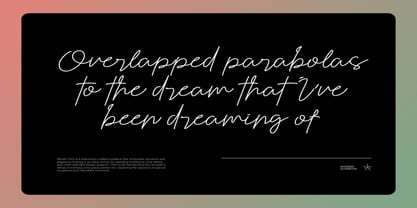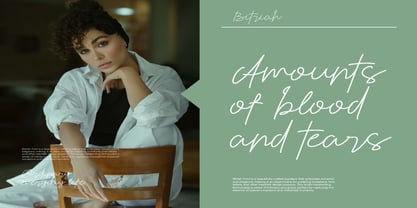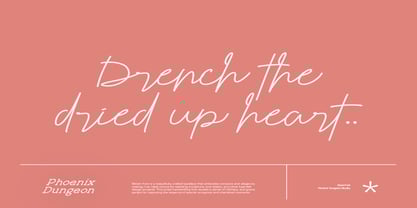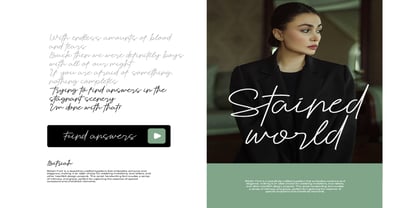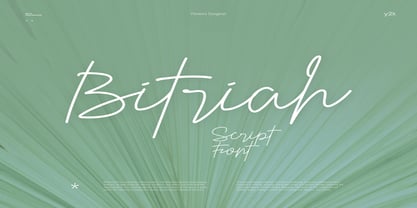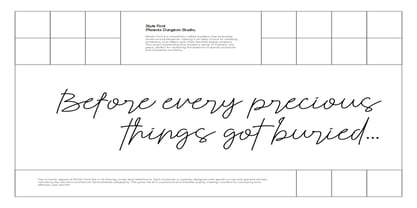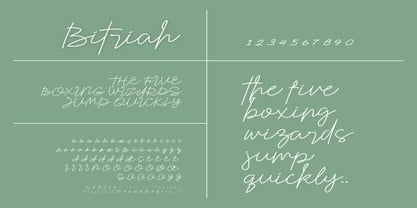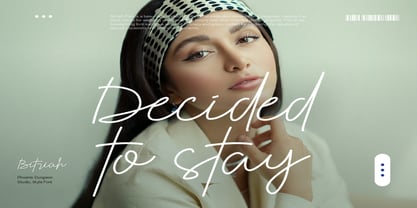
Bitriah
by Phoenix Group
The Bitriah Font Family was designed by Alif Naufal Muzakki and published by Phoenix Group. Bitriah contains 1 styles. More about this family
Bitriah Font is a beautifully crafted typeface that embodies romance and elegance, making it an ideal choice for wedding invitations, love letters, and other heartfelt design projects. This script handwriting font exudes a sense of intimacy and grace, perfect for capturing the essence of special occasions and cherished moments.
Designers: Alif Naufal Muzakki
Foundry: Phoenix Group